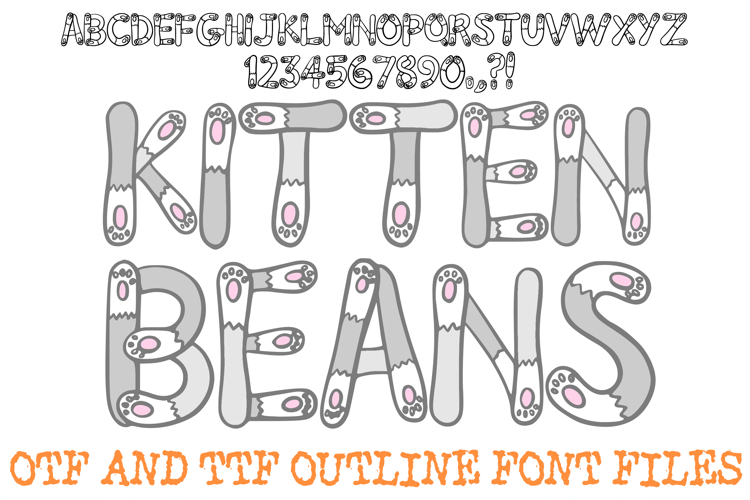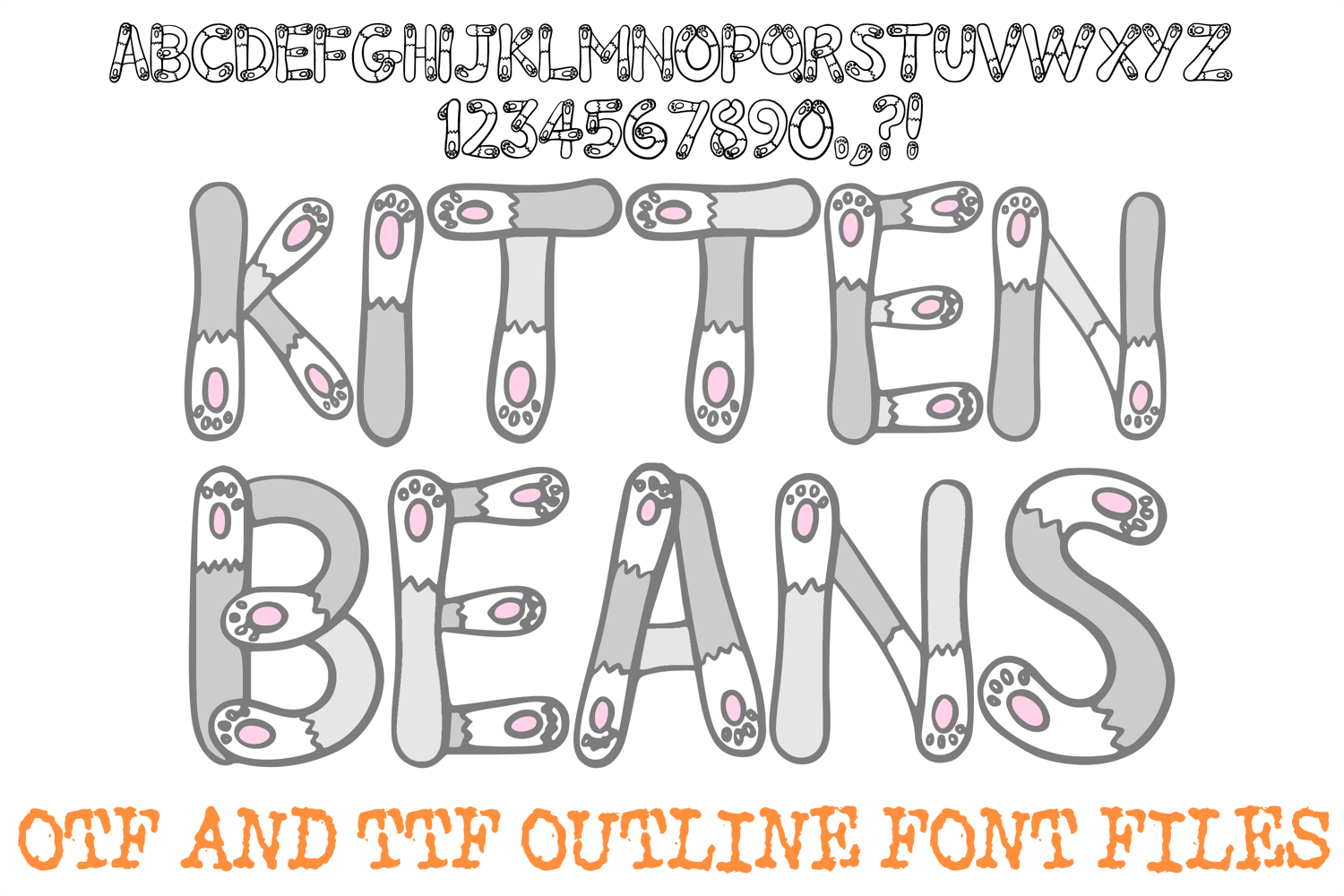
Kitten Beans Alphabet Lettering Font Paws ABC OTF TTF
Bring an overwhelming dose of cuteness and cozy pet charm to your creative projects with the Kitten Beans Font. This incredibly adorable, hand-drawn display typeface features thick, rounded letterforms creatively shaped out of soft cat paws and fuzzy legs. The most charming detail lies in the tiny, pink, squishy "toe beans" and paw pad accents cleverly woven into every uppercase letter, number, and punctuation mark. It is the ultimate font selection for any design requiring a warm, playful, and pet-loving aesthetic.
Delivered as installable OTF and TTF font files, this detailed outline structure offers wonderful creative flexibility. It acts as a fantastic resource for a designer who wants to add custom calico or tabby textures, play with vibrant background patterns, or experiment with pastel color choices. The clean, smooth linework scales beautifully across all design applications, ensuring crisp results for digital media and physical print layouts.